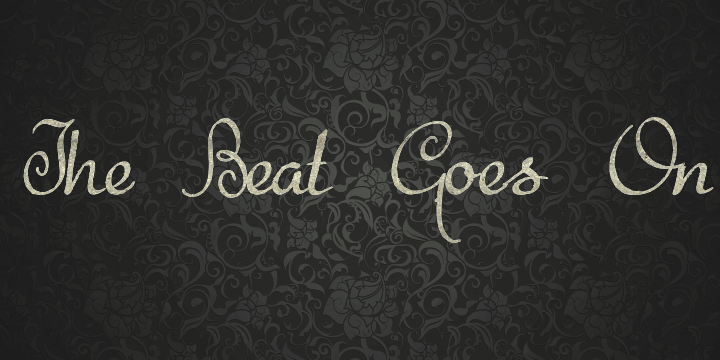
Free The Beat Goes On Font
Download and enjoy this free the beat goes on font. Cool typeface to showcase your designs in a modern way. This free typeface file was found from the amazing source called Font Space. Easily amaze your audience with this fancy font and make your graphic designs pop up from the crowd.